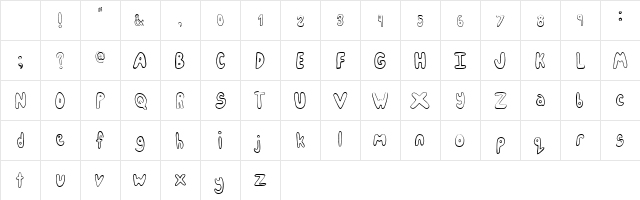
IceCreamParty Regular
Foundry: Xerorapher Type Foundry
Designer: Max Infeld
Design Context for IceCreamParty
IceCreamParty is a composed and adaptable typeface that performs quietly and consistently across a wide range of design contexts.